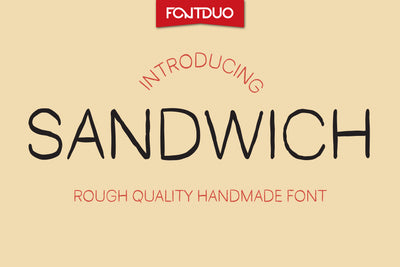
Sandwich Quality Handmade Font
Sandwich FD is a cool, rough handwritten typeface. No matter the topic, this font will be an incredible asset to your fonts’ library, as it has the potential to elevate any creation.